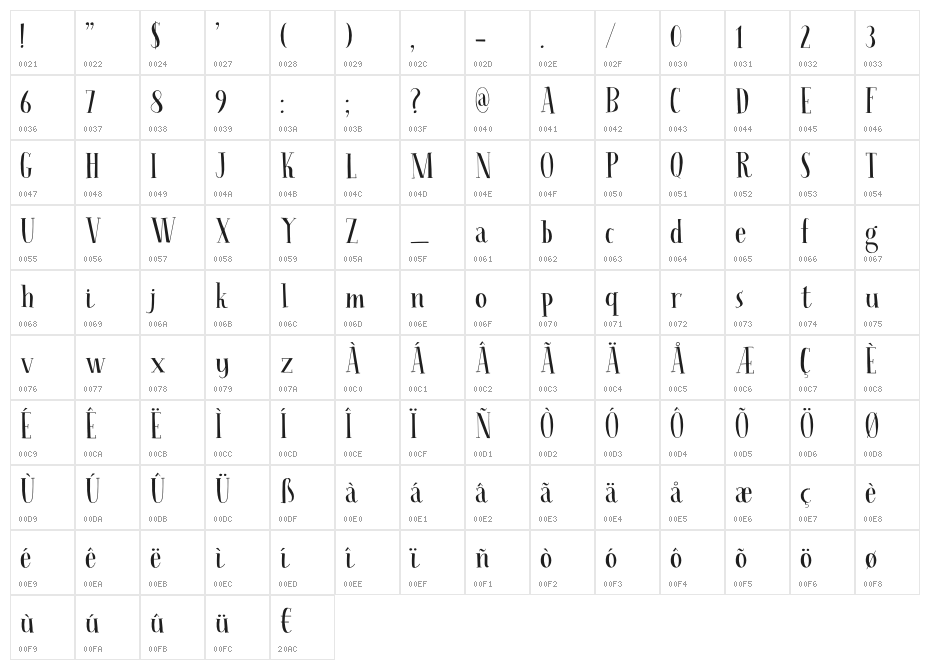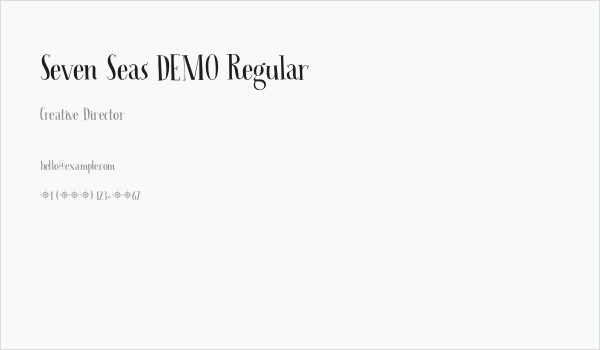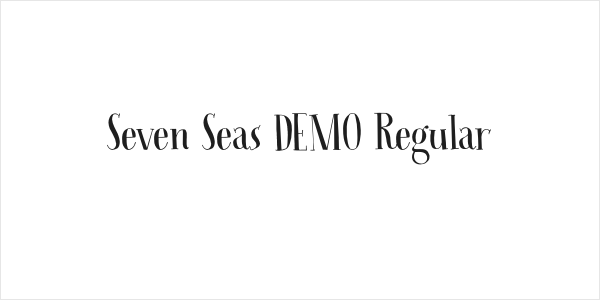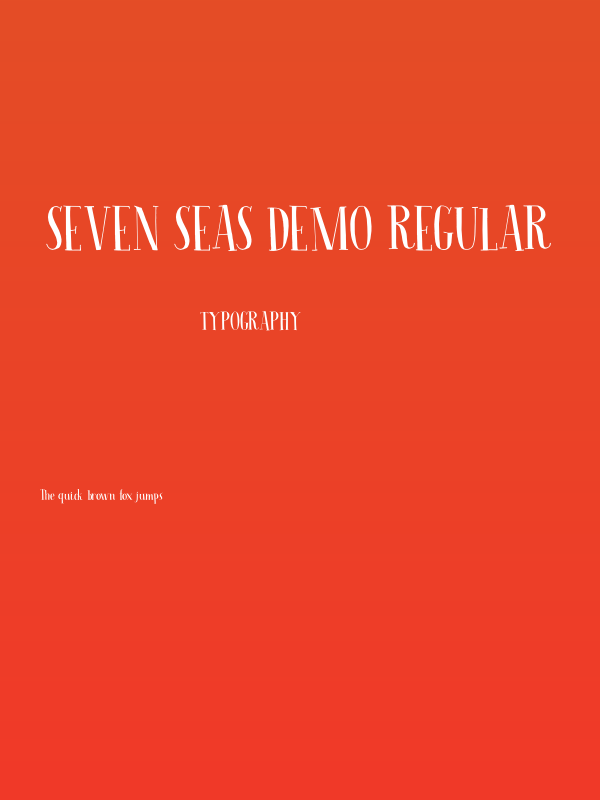
Seven Seas DEMO Regular Font
Seven Seas DEMO Regular Description
This font features a distinctive and elegant style with tall, narrow characters that exhibit a slight curvature, giving it a sophisticated and artistic appearance. The uppercase letters are particularly elongated, with sharp serifs that add a touch of formality. The lowercase letters maintain a consistent style, with some unique flourishes that enhance its decorative nature. The numerals are well-proportioned, matching the overall aesthetic of the font. Special characters, including punctuation and symbols, are designed with a similar attention to detail, ensuring a cohesive look across all text elements. This font's unique style makes it suitable for creative and artistic projects.
| Use Case | Headlines, Logos, Decorative text |
| Proposed Projects | Ideal for use in creative projects such as invitations, posters, branding, and editorial design. |